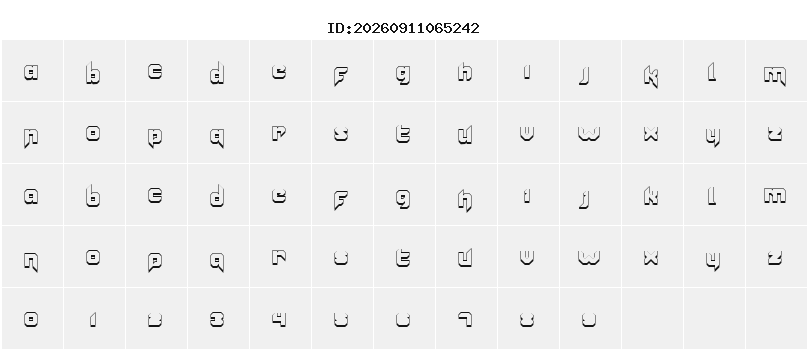
Vannoidyk Preview
• Font Name: Vannoidyk
• Font Style: Shadow
• Font ID: TracerTong: Vannoidyk Shadow: 2012
• Full Font Name: Vannoidyk Shadow
• Version: Aug 2012 - 1.2
• PostScript Name: Vannoidyk-Shadow
• Character Count: 85
• Manufacturer: TracerTong
• Description: tracertong.co.uk
About Vannoidyk.ttf
Vannoidyk.ttf is a modern, elegant sans-serif font designed for ultimate readability and visual harmony. Perfect for branding, headlines, web design, and print materials.